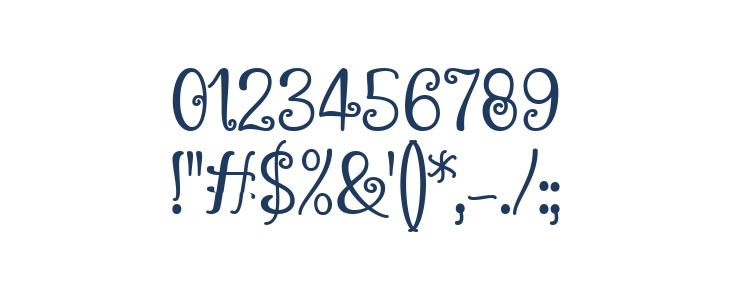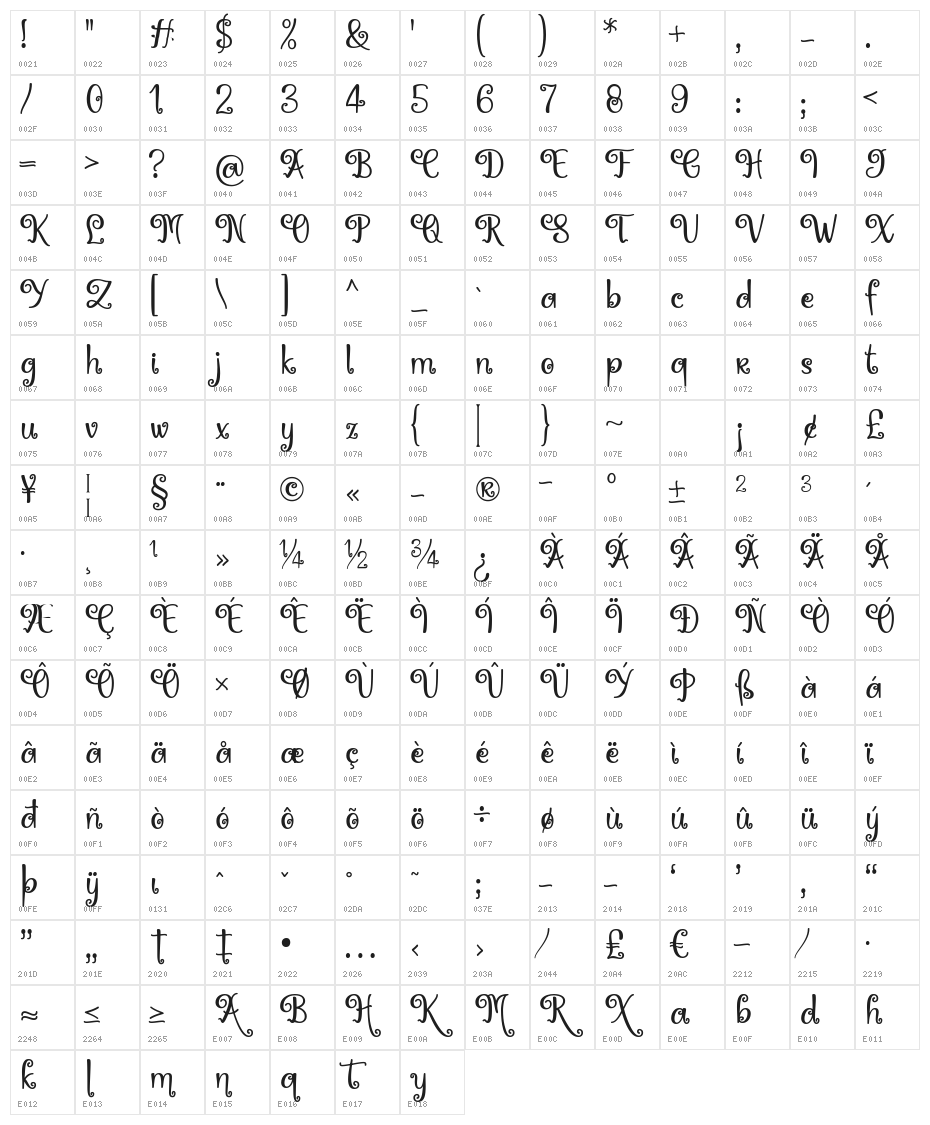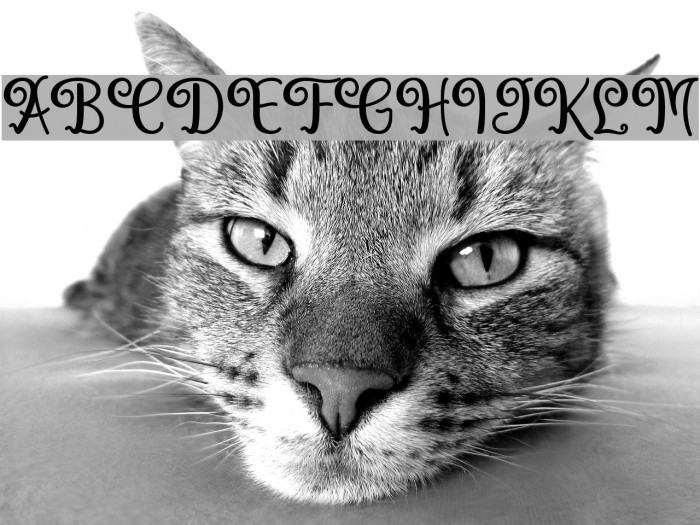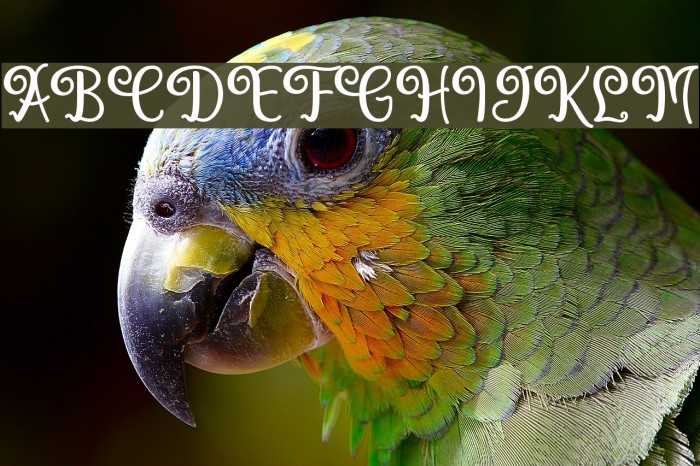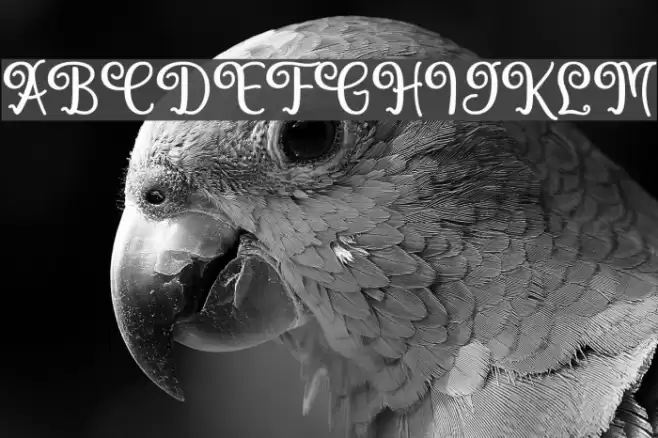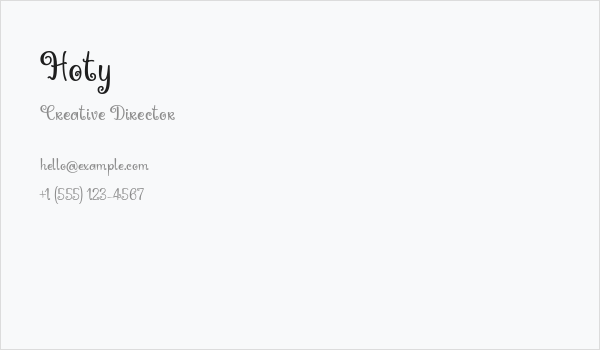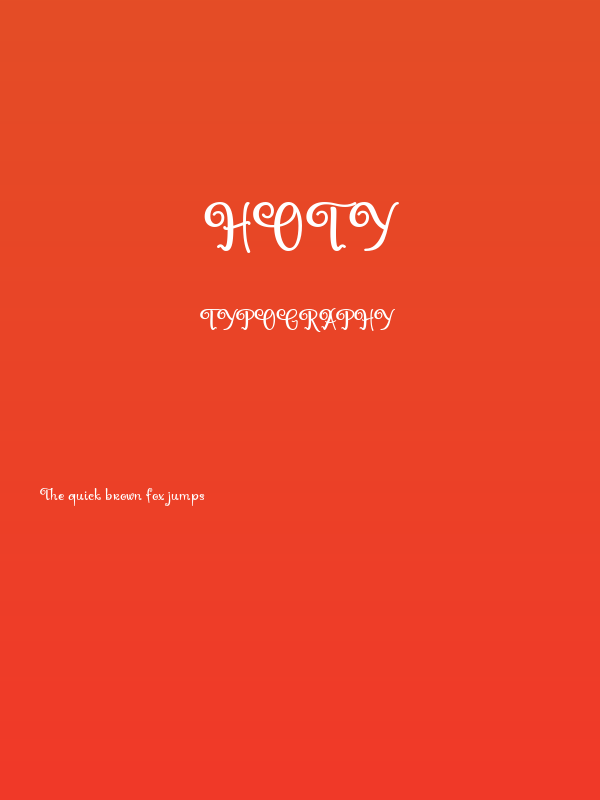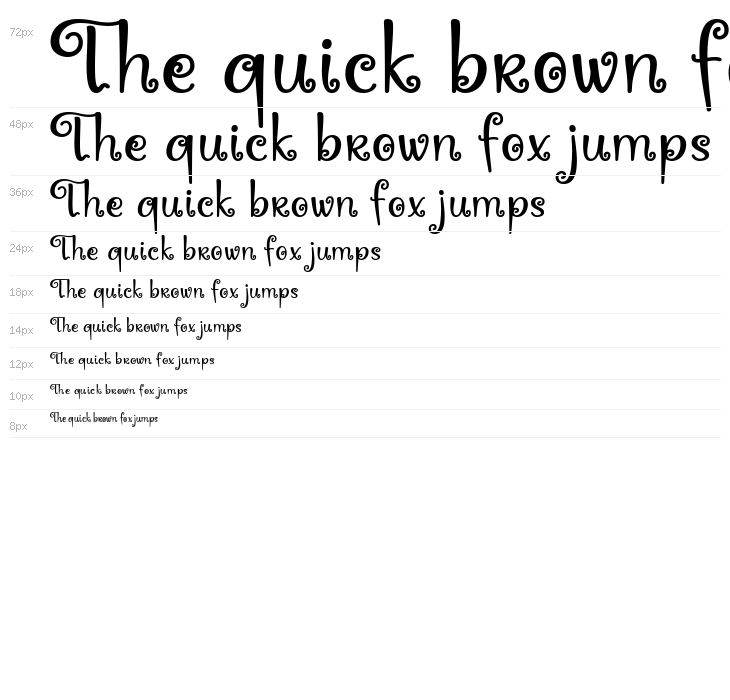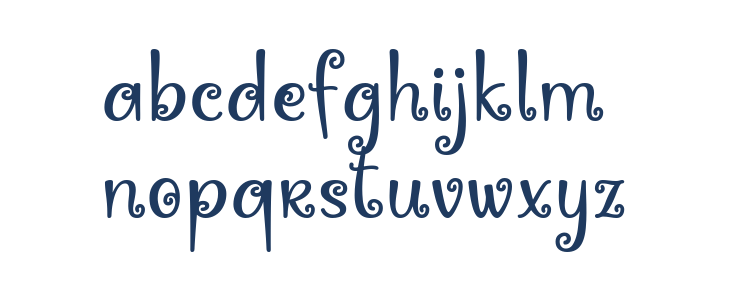
Hoty Font
Hoty Description
This font features a playful and whimsical design with curly and decorative elements. The uppercase letters are characterized by their ornate loops and swirls, giving them a lively and dynamic appearance. The lowercase letters maintain a similar style, with rounded forms and playful curls that add a touch of elegance and fun. The numbers are bold and maintain the decorative theme, making them stand out with their unique curves. Special characters follow the same design principles, ensuring consistency across all elements. This font's overall style is both charming and eye-catching, making it suitable for creative and artistic projects.
Use CaseHeadlines, Logos, Creative projects
Proposed ProjectsIdeal for invitations, greeting cards, children's books, and playful branding.